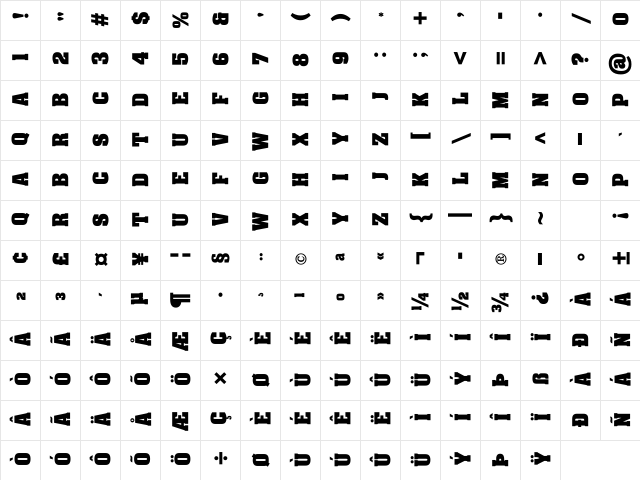
Aachen2048 Regular
Design Context for Aachen2048 Typeface
Aachen2048 is a composed and adaptable typeface that performs quietly and consistently across a wide range of design contexts.